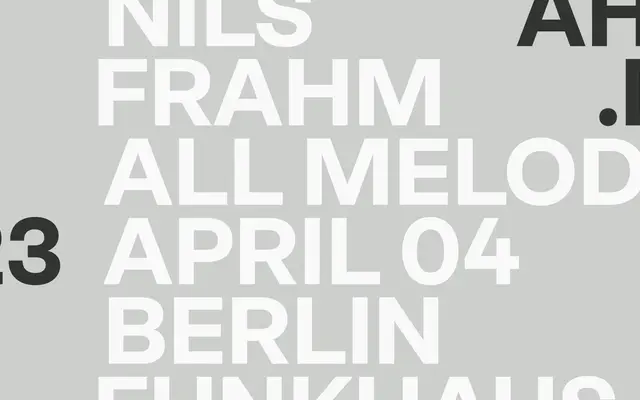
Neue Campton specimen from Studio Rene Bieder
A nine-weight geometric sans from René Bieder with full italic companions and a broad set of OpenType alternates for a/y/t/G/M.
Spanning nine weights from Thin to Black, each with a matching italic, Neue Campton covers a wide range suitable for editorial and branding work. OpenType features include oldstyle figures, tabular and proportional figures, fractions, case-sensitive forms and alternate glyphs for several characters including a, y, t, G and M. The geometric structure is clean and consistent without being especially distinctive, making it a reliable workhorse rather than a characterful choice.
Neue Campton is a geometric sans-serif with clean, circular forms and a rational structure typical of the geometric tradition, with alternate characters offering humanist touches.